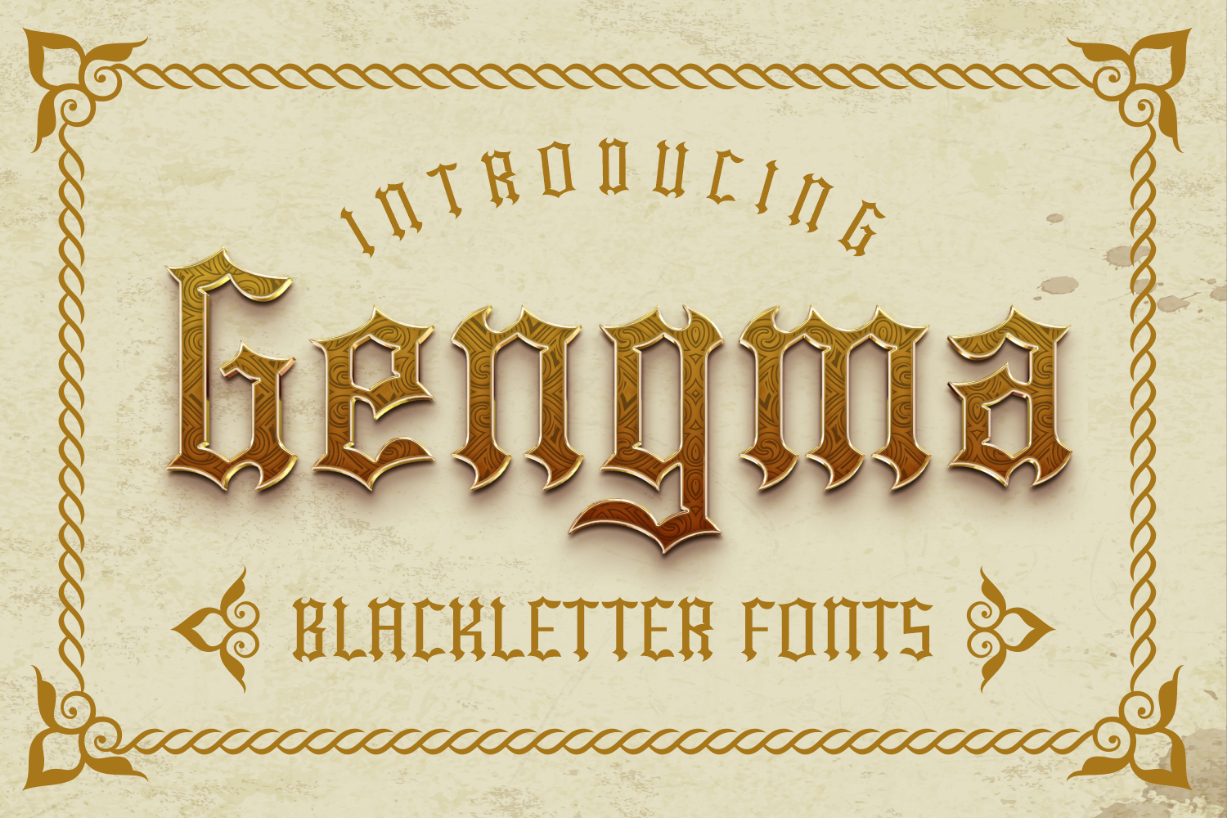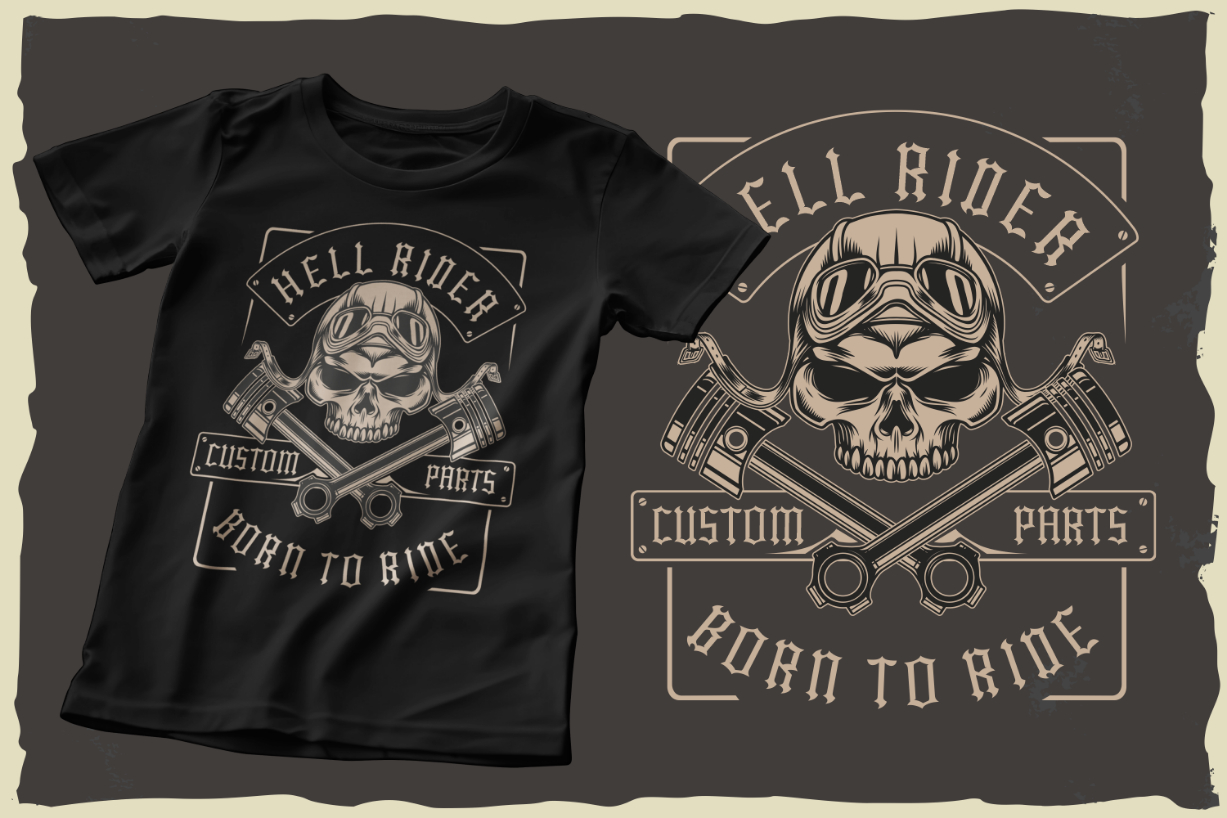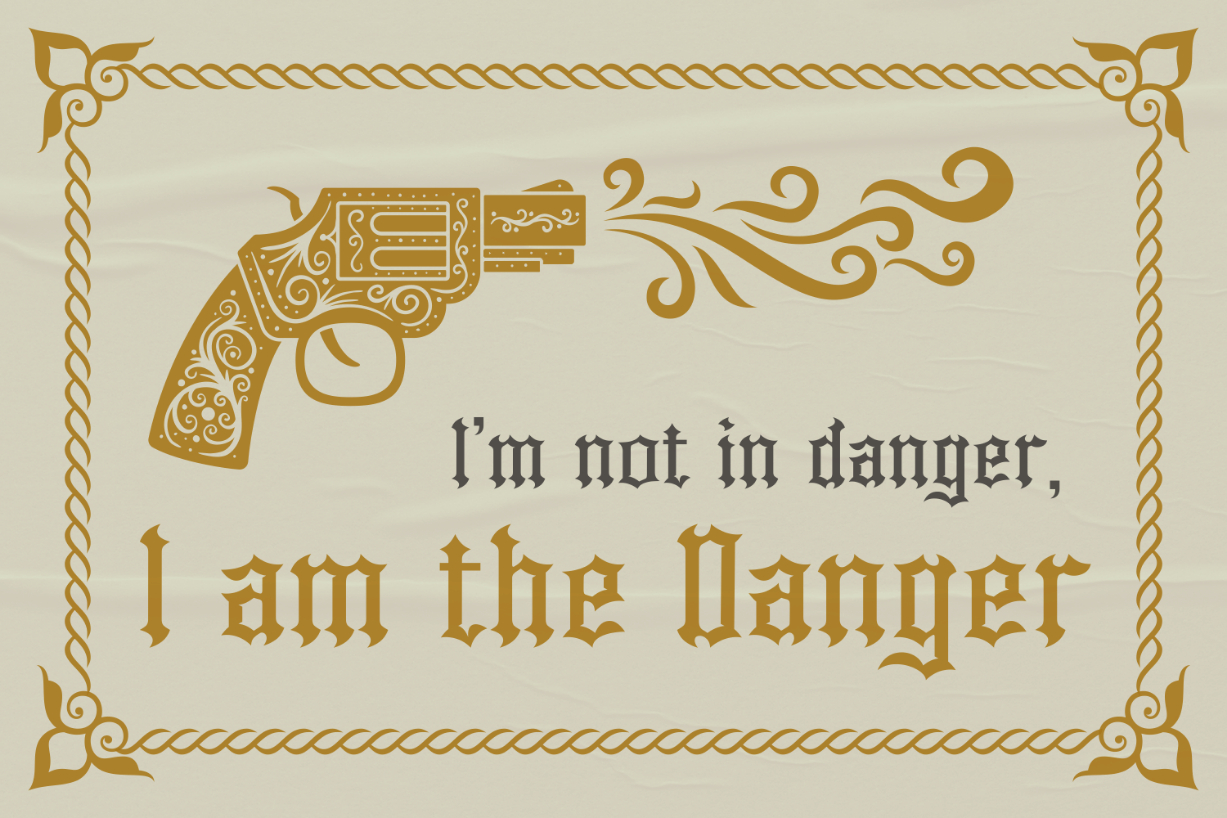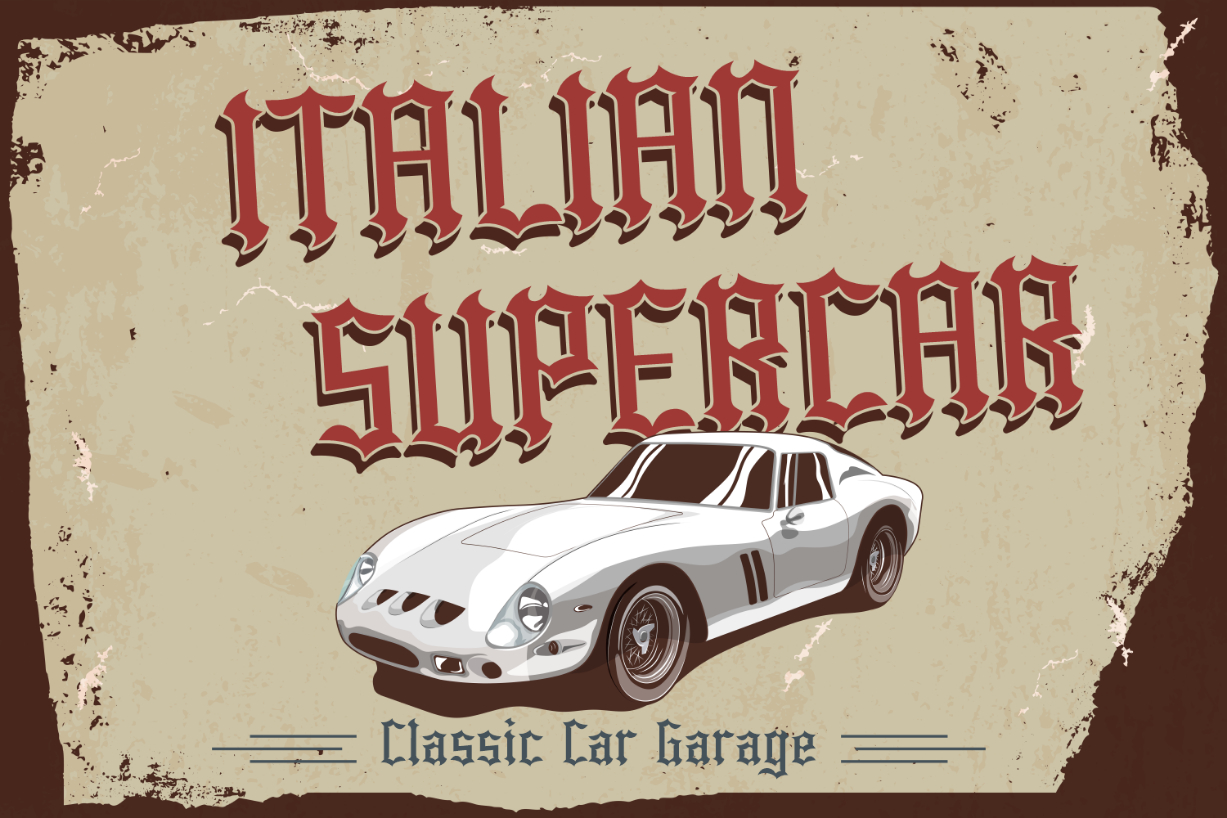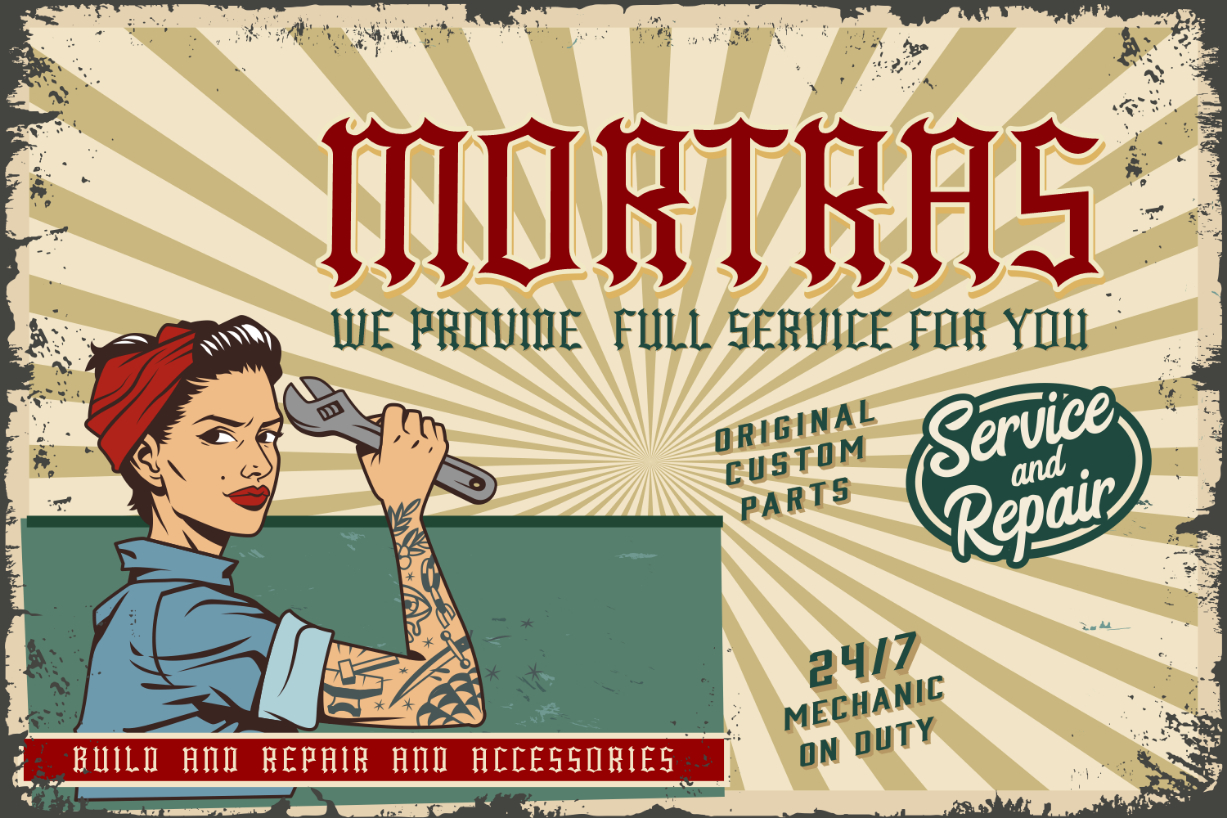
Gengma Font
About Gengma Font
Gengma is an excellent blackletter font. Showcasing a gothic look, this striking set of characters has everything you need to create memorable typography. Try it out in your next creative project, and you will love the results!